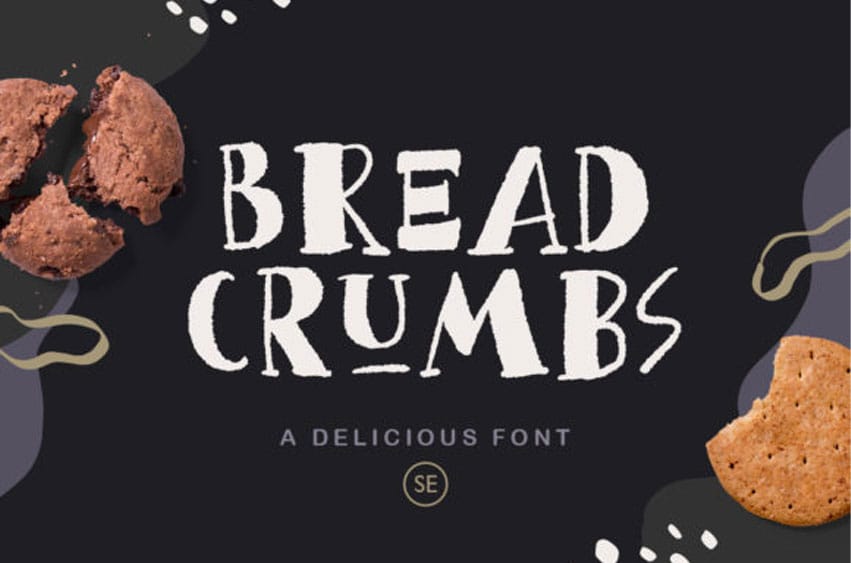
Bread Crumbs Font is a unique and incredibly interesting display font. Its friendly feel makes this font incredibly versatile, fitting a wide range of contexts.